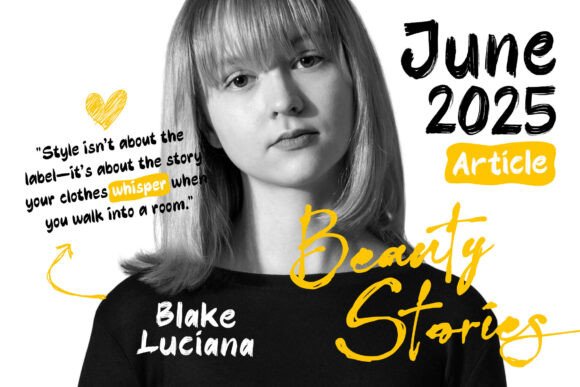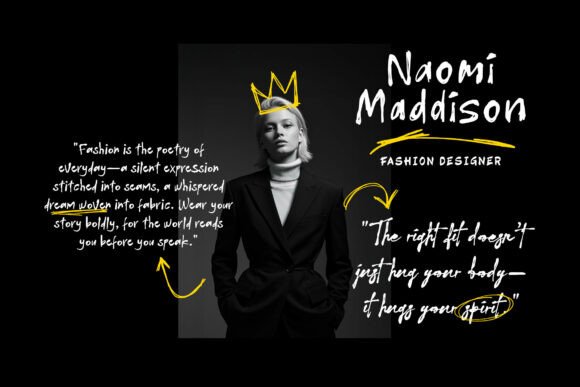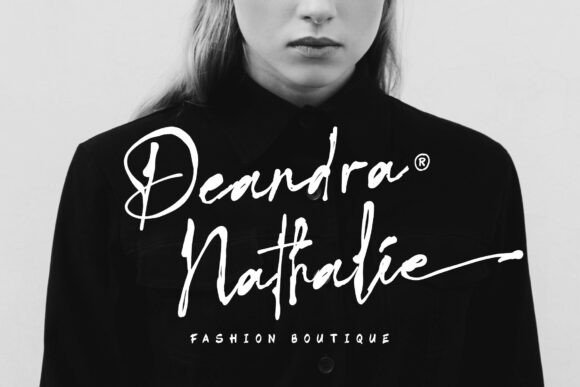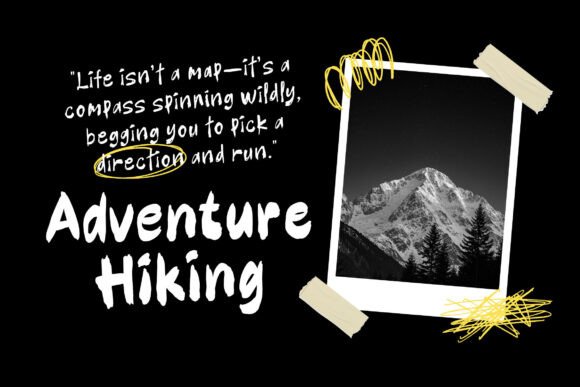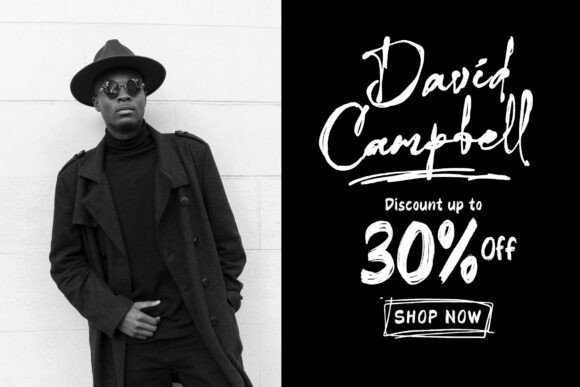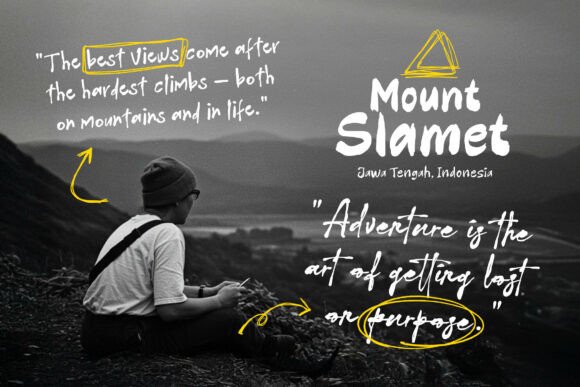
Unleashing Raw Creativity: The Imperfetto Font Family
Have you ever found yourself scribbling down a wild idea in the middle of the night, the words flowing effortlessly onto the page without a care for grammar or spelling? That’s the magic of the first draft – the spark of creativity before the rules kick in. It’s a feeling that’s hard to capture, but the Imperfetto Font Family has managed to bottle it, delivering that raw, unfiltered energy straight to your design.
The Imperfetto Font Family is more than just a typeface – it’s a reflection of the designer who refuses to be boxed in. It’s for the brand that values authenticity over sterility, and is ideally suited for disrupting the status quo through high-impact social media, merchandise, and poster design.
- Unique Characteristics: Imperfetto Font features a unique, hand-drawn style with subtle imperfections, giving it a personal and human touch.
Imperfetto Font Review
Imperfetto is a beautifully crafted font that I’ve had the pleasure of working with. ✨ Its unique blend of modern and distressed elements creates a visually appealing design that can be used for a wide range of projects. The font is perfect for adding a touch of elegance to your designs, and its versatility makes it a great choice for both digital and print media.
- ✨ Beautifully crafted, with a unique blend of modern and distressed elements.
- ✨ Highly versatile, suitable for digital and print media.
- ✨ Easy to read, even in smaller font sizes.
However, there are a few limitations to consider. ⚠️ The font may not be suitable for projects that require a high level of consistency in font styling, as Imperfetto has a slightly irregular feel to it. Additionally, the font may not be the best choice for projects that require a lot of fine print or small text, as the distressed elements can make it difficult to read in smaller sizes.
Overall, I think Imperfetto is a great addition to any designer’s toolkit. While it may not be perfect for every project, its unique style and versatility make it a great choice for designers who want to add some visual interest to their work.
Tips for Getting the Most Out of Imperfetto Font
Use Imperfetto Font for:
- Designing elegant and sophisticated titles and headings.
- Creating unique and eye-catching logos.
- Adding a touch of elegance to digital and print materials.
Experiment with different font sizes, colors, and styles to achieve the desired look.